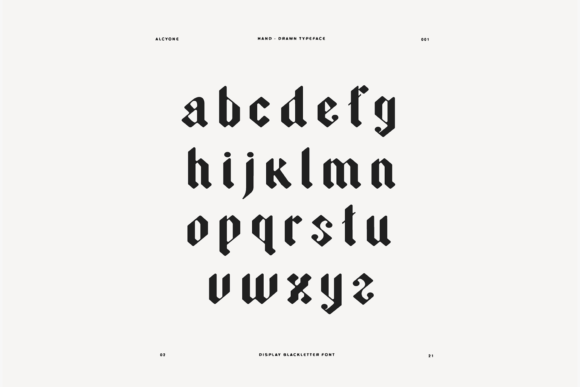
Introducing Alcyone Font: The Ultimate Blackletter Font for Bold Designs
Are you tired of using the same old fonts in your designs? Do you want to add a touch of elegance and sophistication to your projects? Look no further than Alcyone Font, an assertive and cool blackletter font that’s sure to take your designs to the next level. In this article, we’ll explore the features and benefits of Alcyone Font, and show you how to make the most of this versatile and stylish font.
What is Alcyone Font?
Alcyone Font is a blackletter font that’s designed to make a statement. With its strong, confident, and dynamic letterforms, this font is perfect for designers who want to add a touch of drama and flair to their projects. Whether you’re working on a logo, a poster, or a website, Alcyone Font is sure to grab attention and leave a lasting impression.
Key Features of Alcyone Font
So what makes Alcyone Font so special? Here are just a few of its key features:
- Assertive and cool design: Alcyone Font has a bold and confident design that’s sure to make your designs stand out.
- Strong and dynamic letterforms: The font’s letterforms are carefully crafted to convey a sense of strength and energy.
- Highly versatile: Alcyone Font can be used in a wide range of design projects, from logos and posters to websites and social media graphics.
- Easily readable: Despite its bold design, Alcyone Font is surprisingly easy to read, making it perfect for body text as well as headlines.
Benefits of Using Alcyone Font
So why should you choose Alcyone Font for your next design project? Here are just a few benefits of using this amazing font:
- Adds stylish character to your designs: Alcyone Font has a unique and stylish design that’s sure to add a touch of elegance to your projects.
- Conveys confidence and strength: The font’s bold and dynamic letterforms are perfect for conveying confidence and strength in your designs.
- Perfect for creative projects: Alcyone Font is ideal for creative projects, such as posters, flyers, and social media graphics.
- Great for headlines and titles: The font’s bold design makes it perfect for headlines and titles, but it’s also easy to read for body text.
How to Use Alcyone Font
Using Alcyone Font is easy! Here are a few tips to get you started:
- Pair it with a simple font: Alcyone Font is bold and attention-grabbing, so pair it with a simple font for body text to create a striking contrast.
- Use it for headlines and titles: The font’s bold design makes it perfect for headlines and titles, but it’s also easy to read for body text.
- Experiment with different colors: Alcyone Font looks great in a wide range of colors, so don’t be afraid to experiment and find the perfect hue for your design.
| Font Name | Alcyone Font |
| Author | mdlne |
In conclusion, Alcyone Font is an amazing blackletter font that’s perfect for designers who want to add a touch of elegance and sophistication to their projects. With its strong, confident, and dynamic letterforms, this font is sure to grab attention and leave a lasting impression. Whether you’re working on a logo, a poster, or a website, Alcyone Font is a versatile and stylish choice that’s sure to take your designs to the next level.